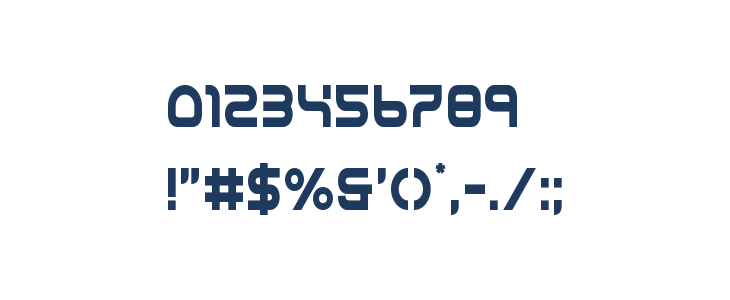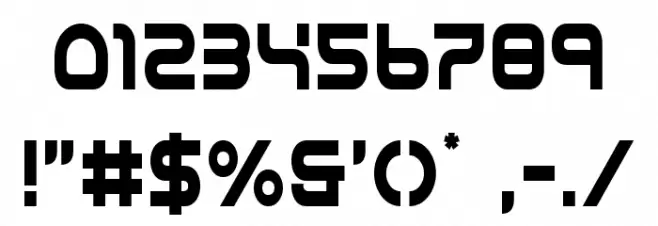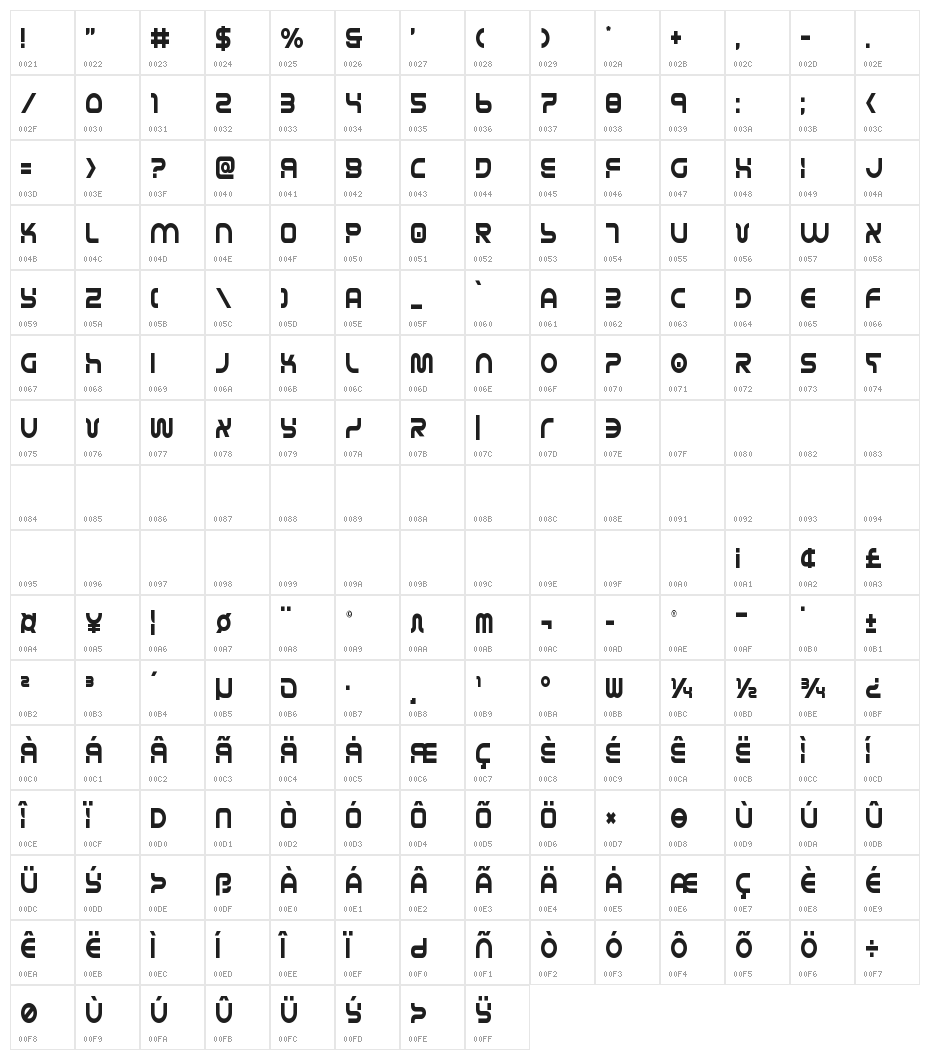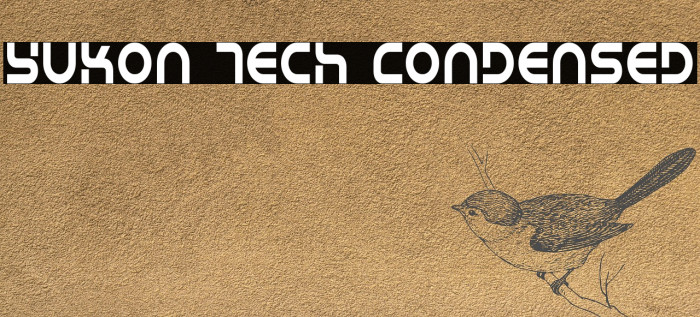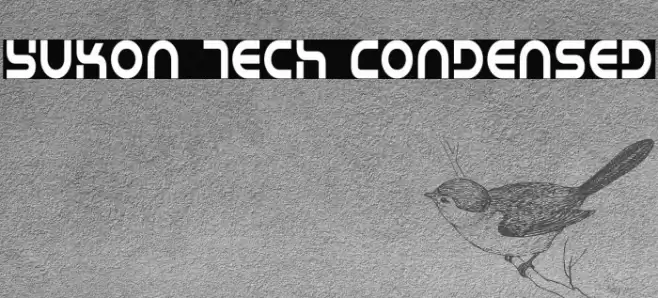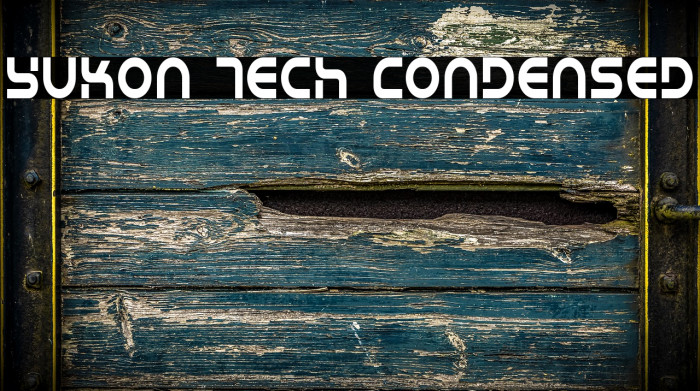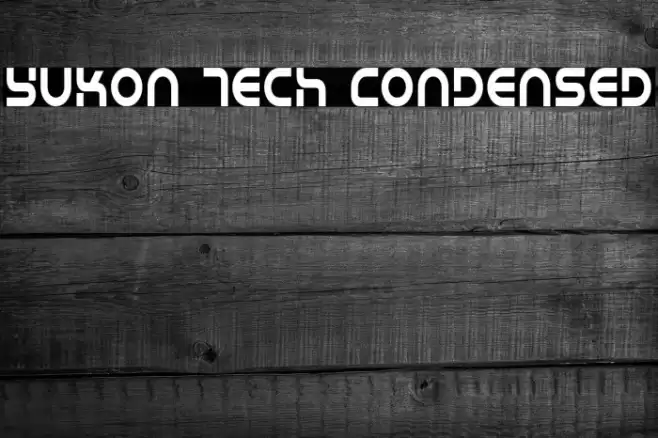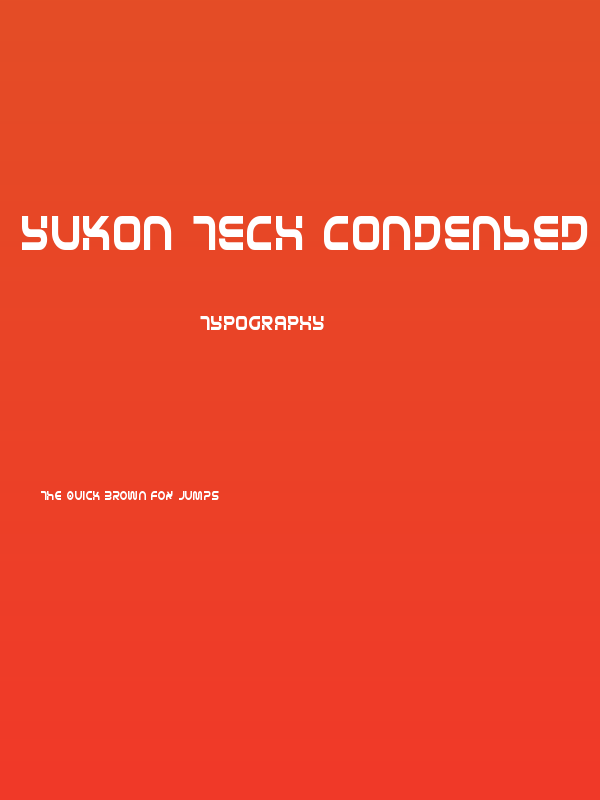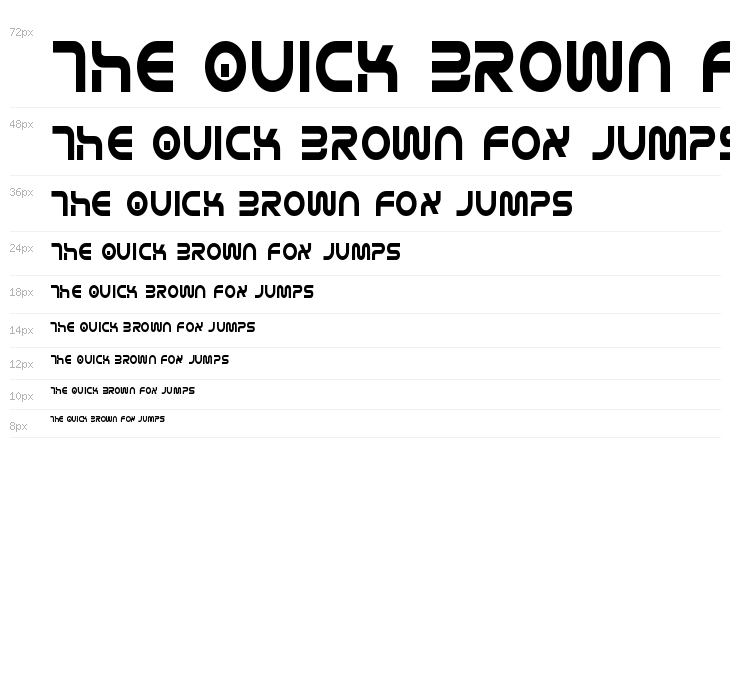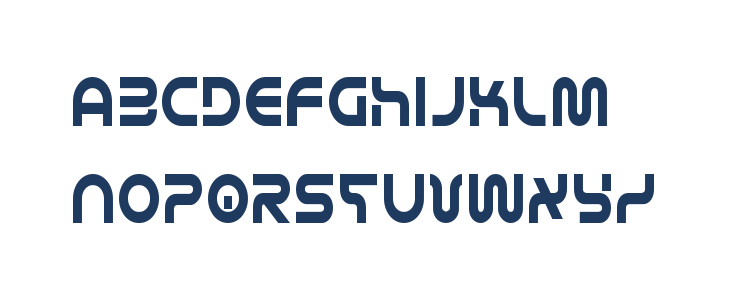
Yukon Tech Condensed Font
Yukon Tech Condensed Description
This font features a futuristic and geometric design, characterized by its bold and condensed letterforms. The characters are constructed with a combination of straight lines and rounded edges, creating a modern and tech-inspired appearance. The uppercase and lowercase letters maintain a consistent style, with unique cutouts and angles that add a distinctive flair. The numerals and special characters follow the same design principles, ensuring a cohesive look across all glyphs. This font's condensed width allows for efficient use of space, making it suitable for various design applications where a modern and compact typeface is desired.
| Use Case | Headlines, Logos, Digital Interfaces |
| Proposed Projects | Ideal for tech branding, sci-fi movie posters, video game titles, and modern digital interfaces. |